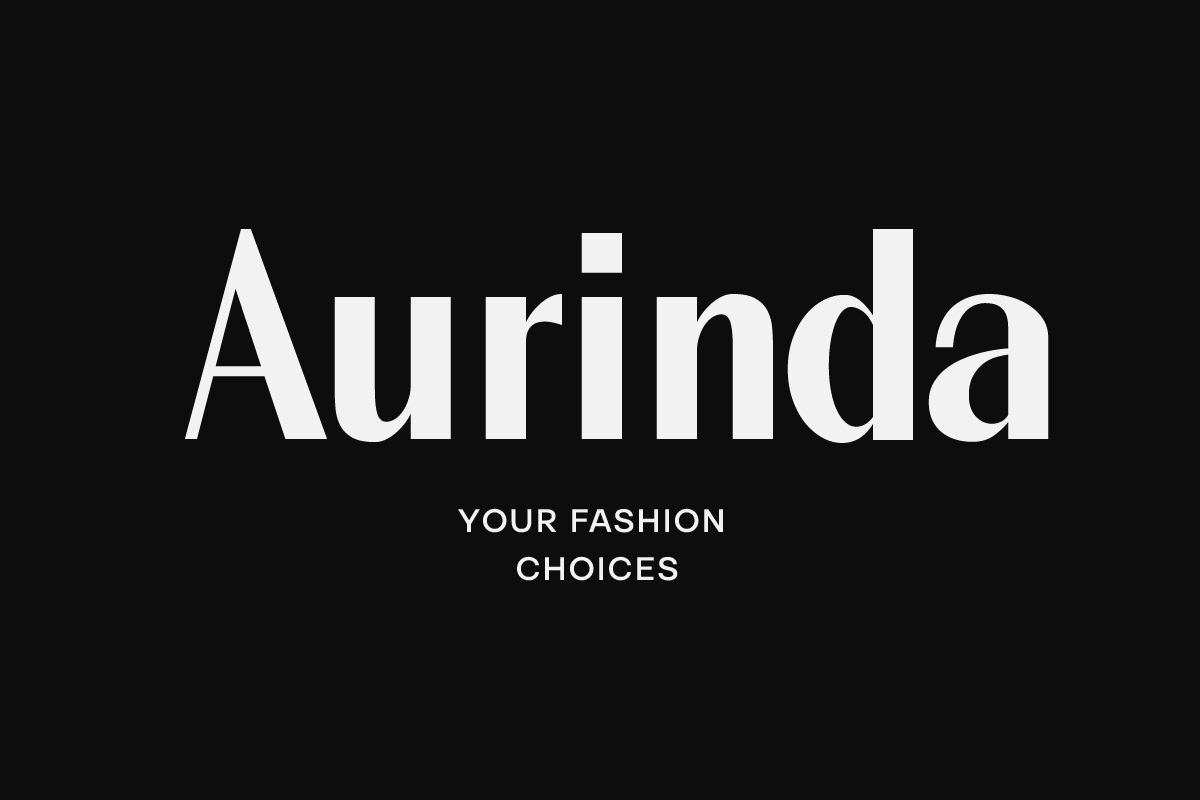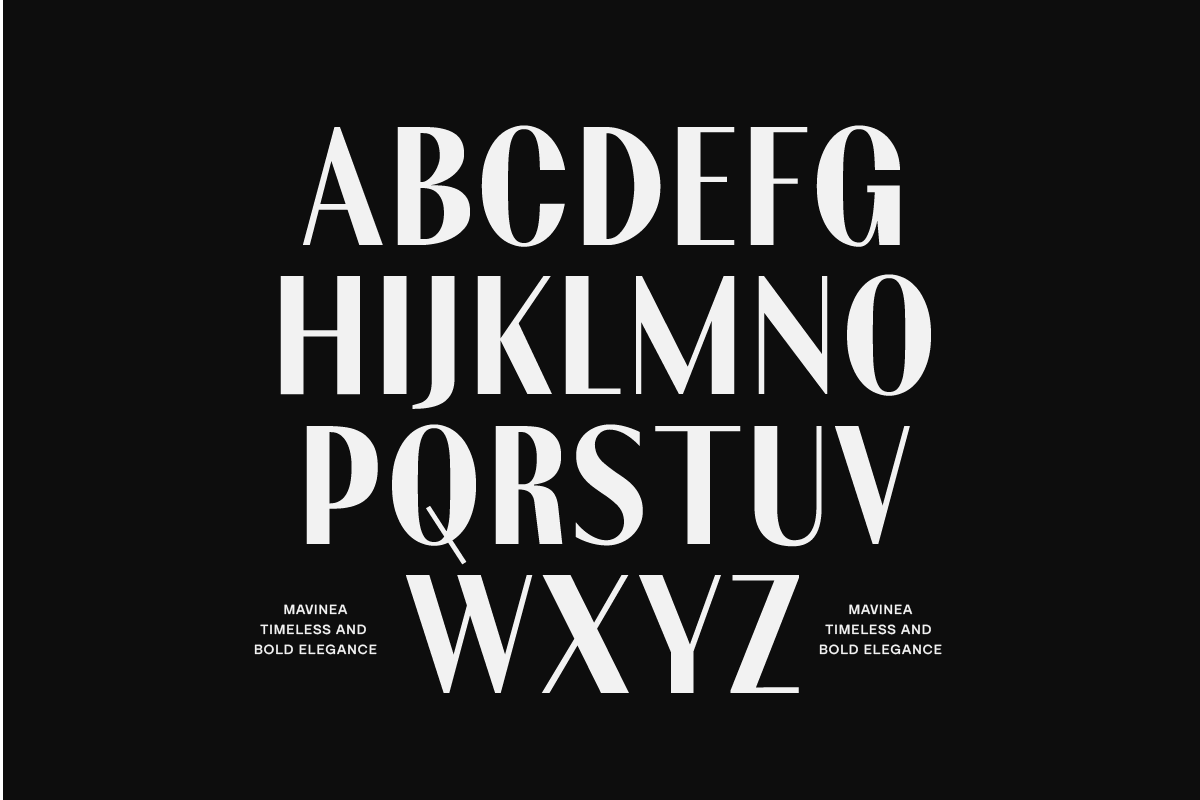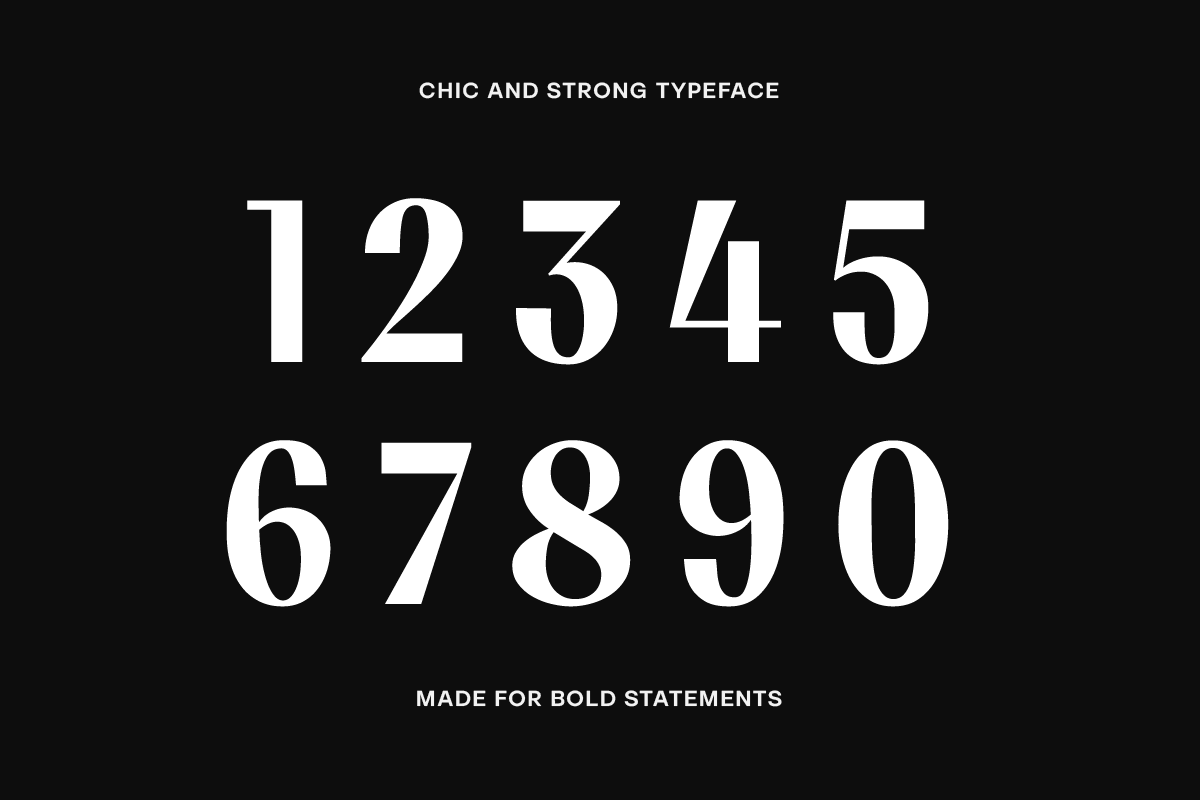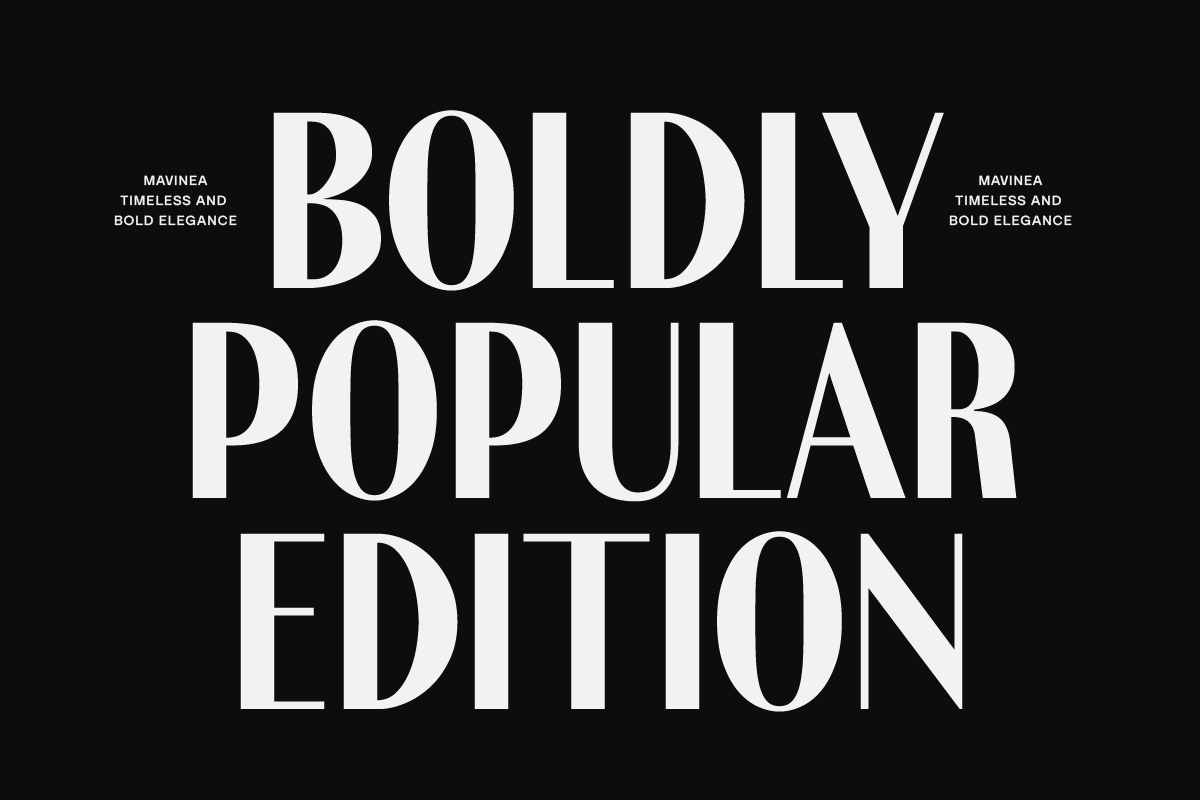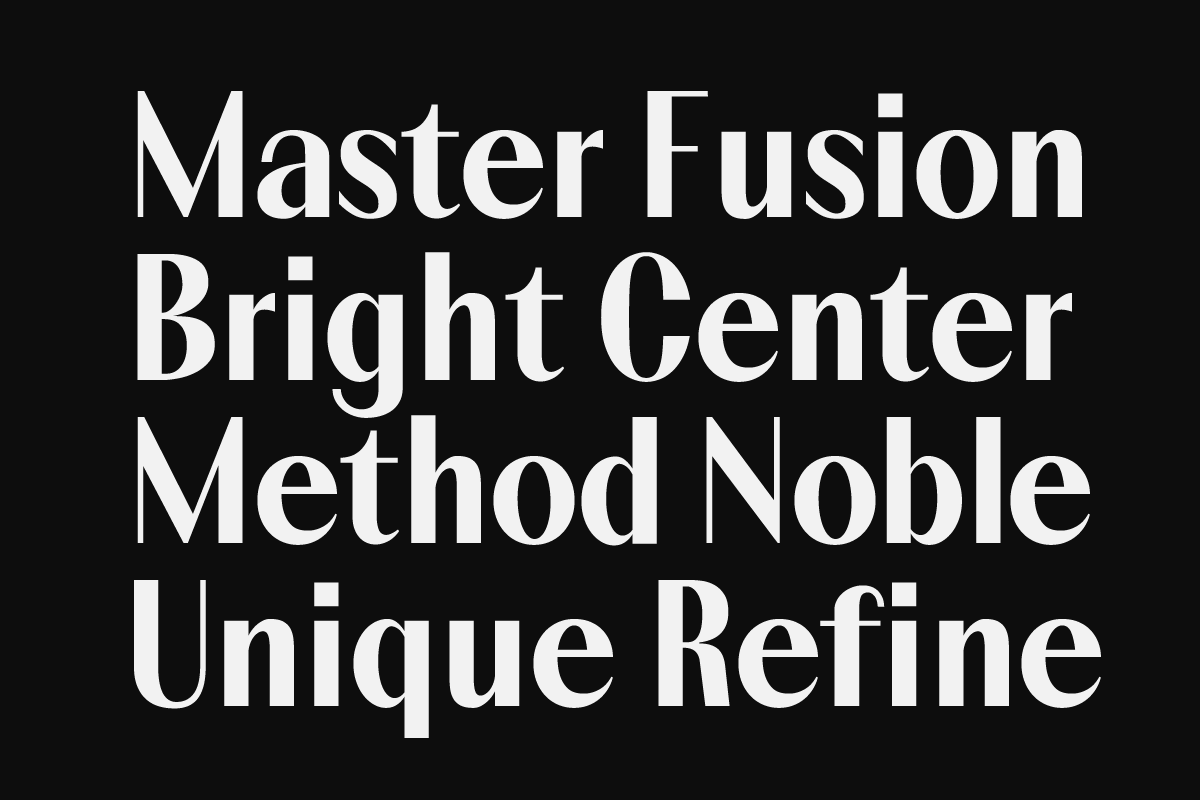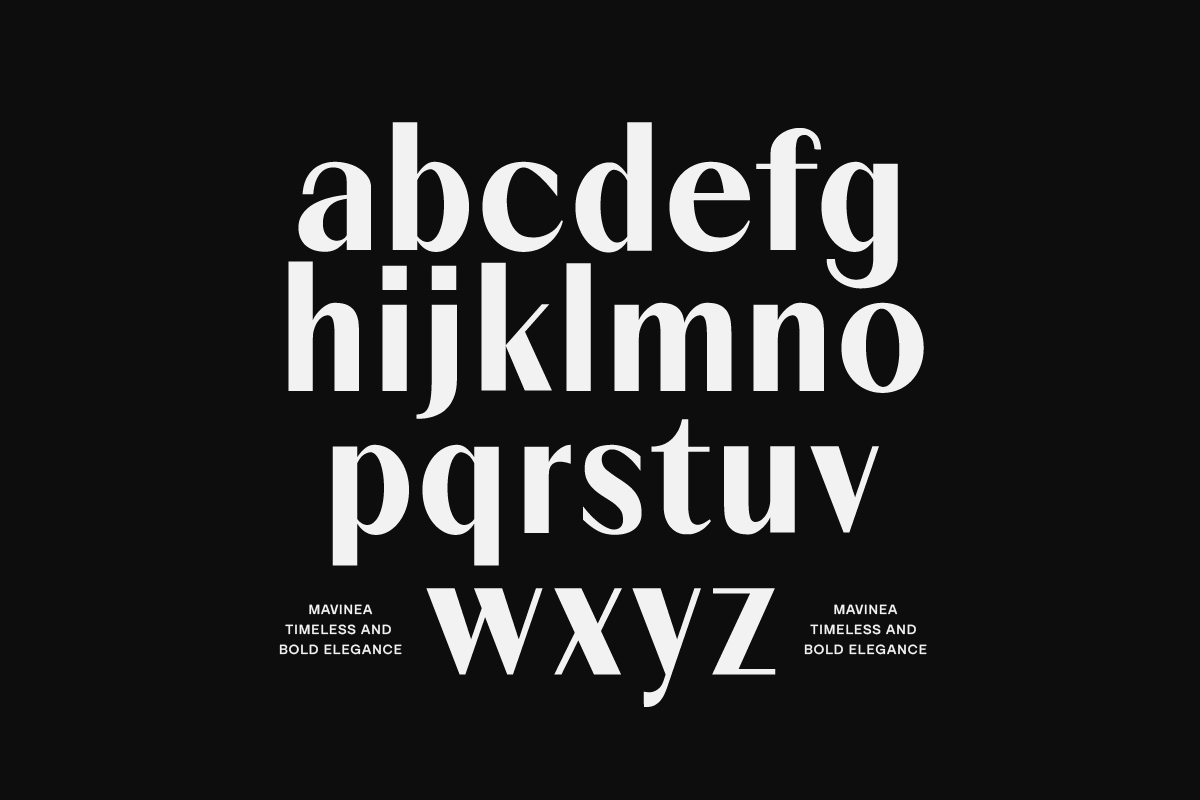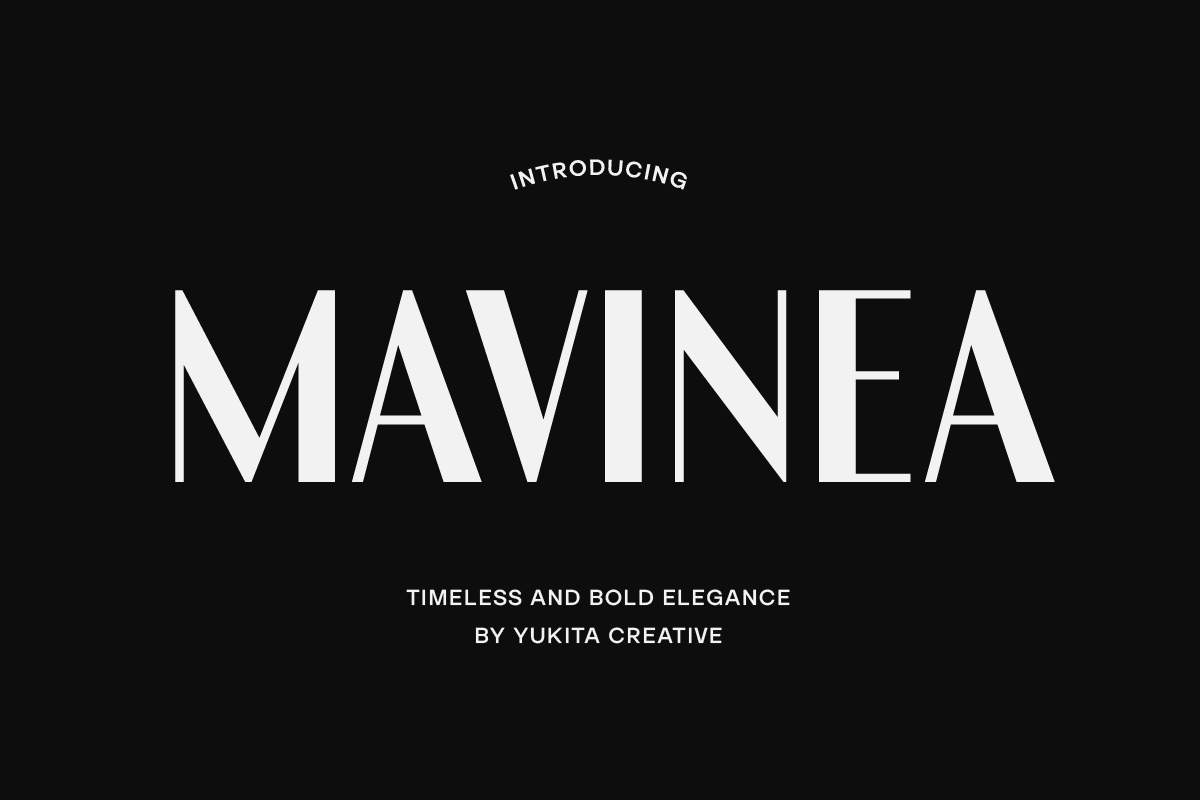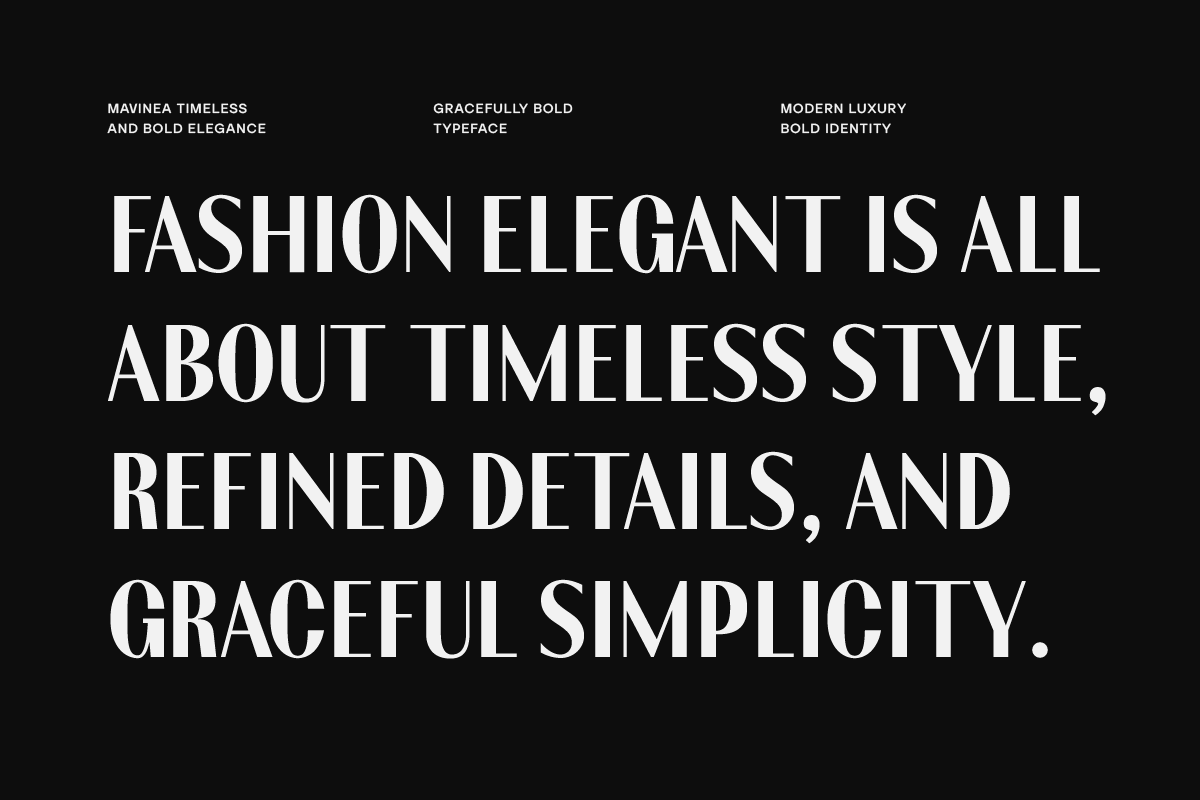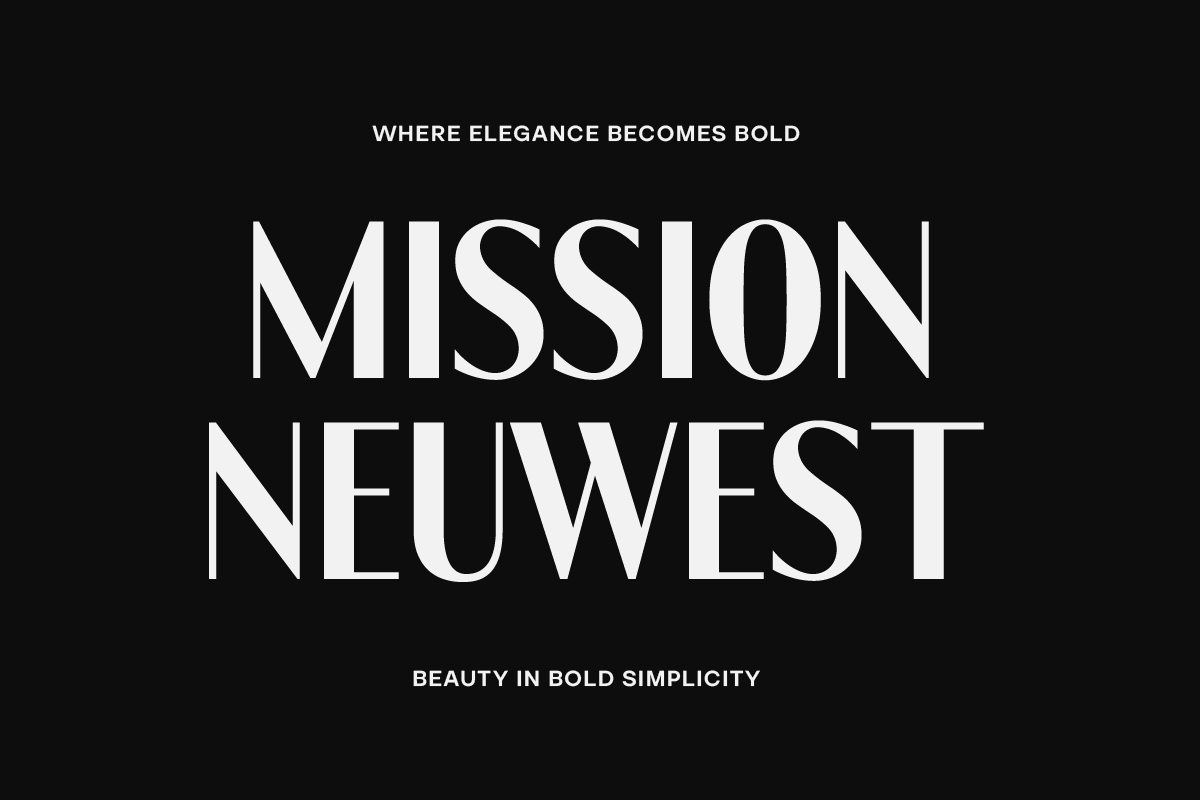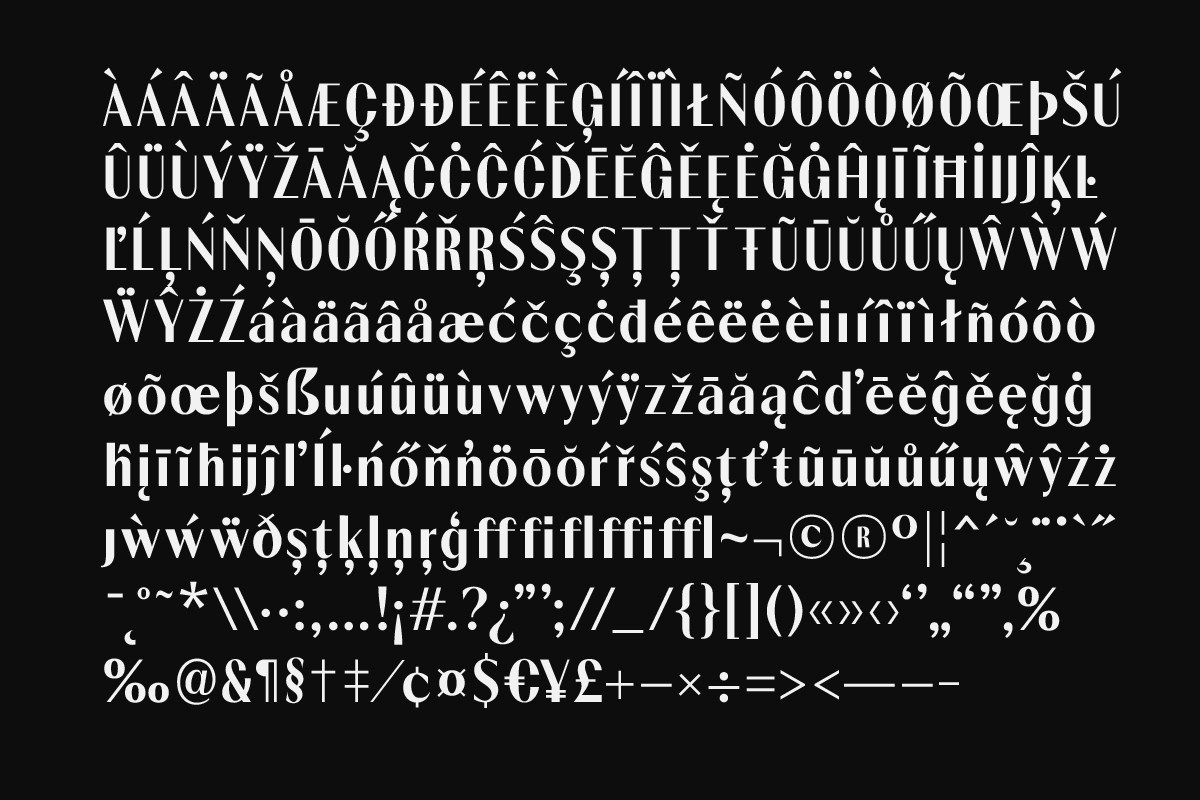
Mavinea – Luxury Bold Fonts
Mavinea is a simple yet elegant sans serif font designed to elevate any modern design project with a touch of sophistication. With its striking contrast between thick and thin strokes, Mavinea delivers a refined visual rhythm that blends luxury and minimalism.
Perfect for branding, high-end packaging, editorial layouts, and upscale logo design, this Luxury Bold Font offers timeless appeal with clean geometry and subtle curves. Whether used in large headlines or refined typographic compositions, Mavinea stands out with confidence and class.
- Elegant contrast stroke
- Modern sans serif style
- Bold and luxurious appearance
- Great for branding & logo design